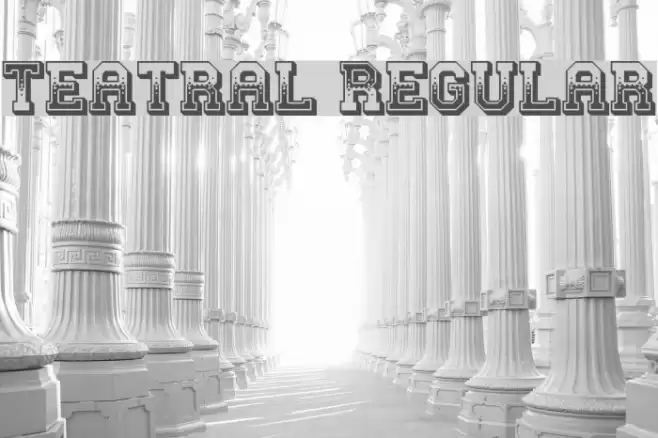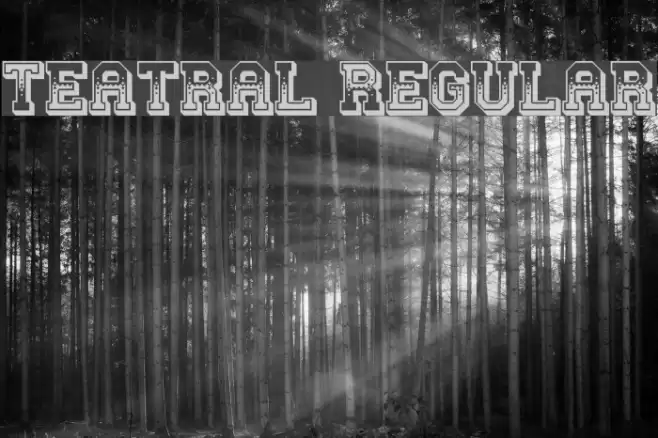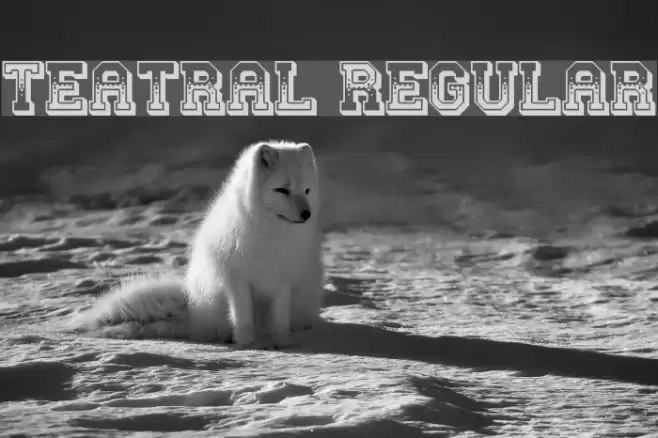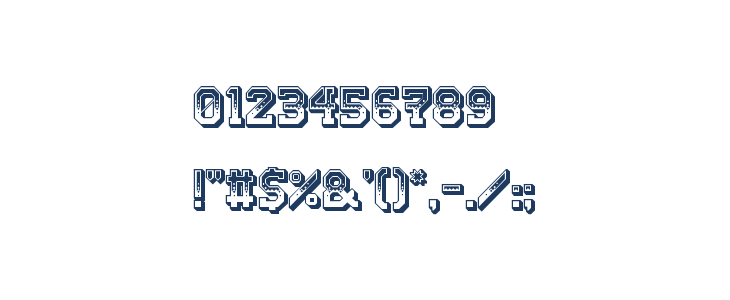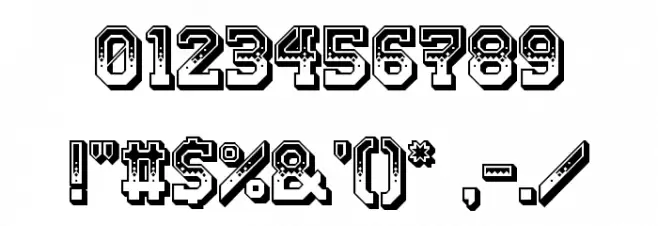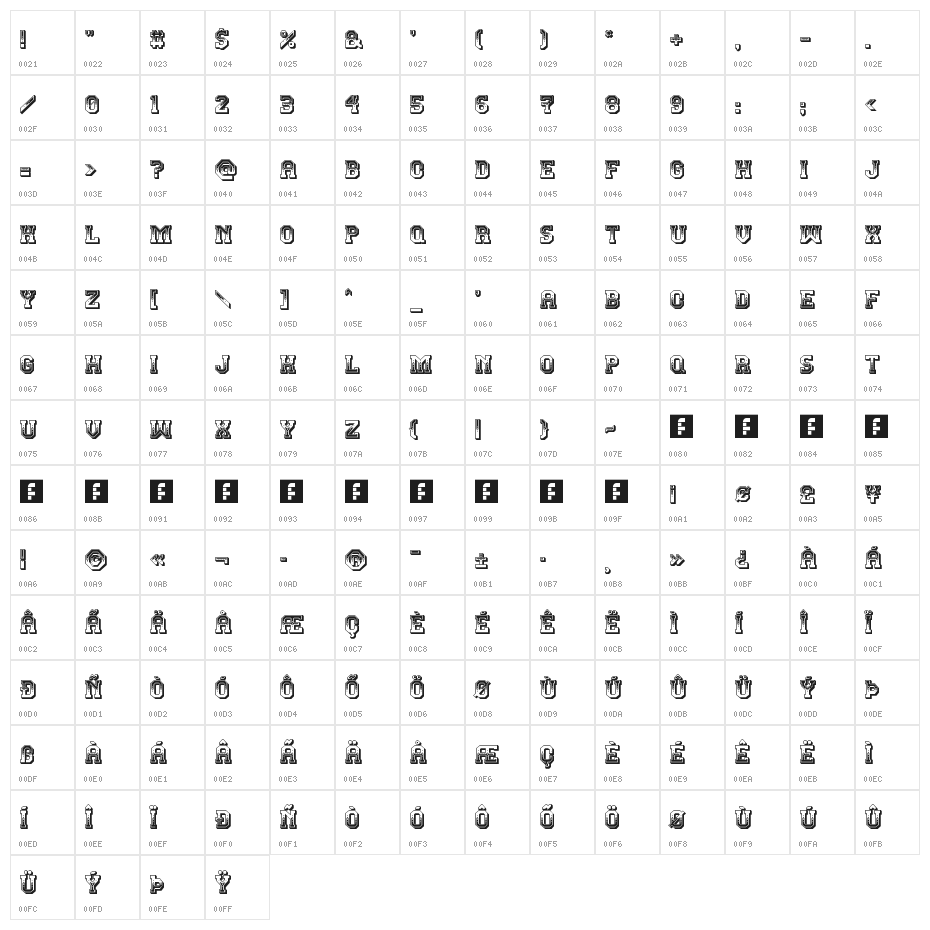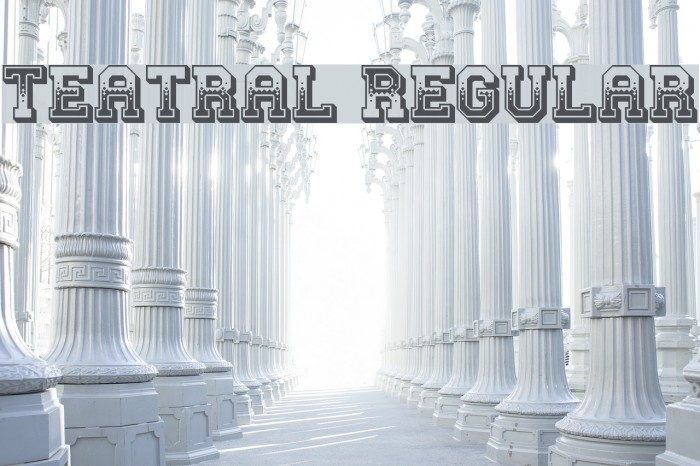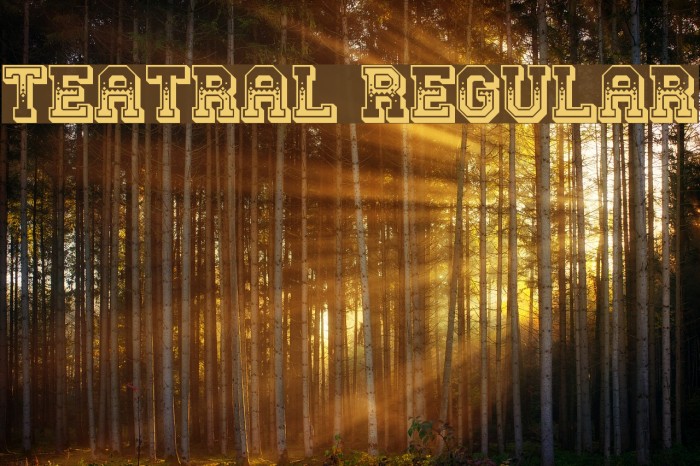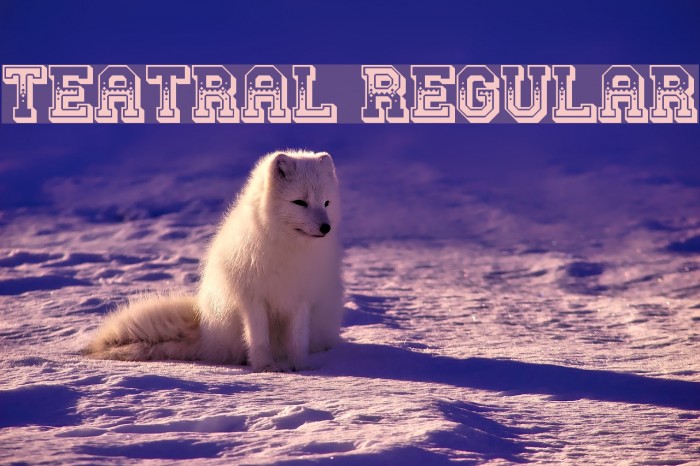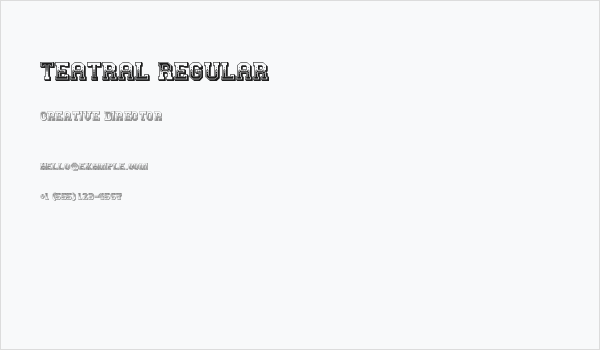
Teatral Regular Font
Teatral Regular Description
This font features a bold, decorative style with a three-dimensional effect, achieved through a combination of thick outlines and shadowing. The characters are uppercase and have a strong, impactful presence, making them ideal for attention-grabbing designs. The font includes a full set of uppercase letters, numbers, and a variety of special characters. The design is reminiscent of vintage theater or circus posters, with an ornate and playful aesthetic. The intricate detailing within each letter adds depth and complexity, making it suitable for creative and artistic projects.
A bold, decorative font with a 3D effect and vintage flair from Uncategorized fonts.
- Proposed Projects: Ideal for posters, signage, branding, and any project requiring a dramatic and eye-catching typeface.
- Overall Style: Vintage